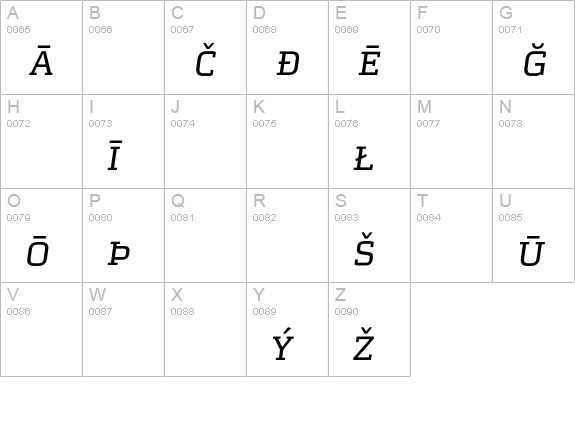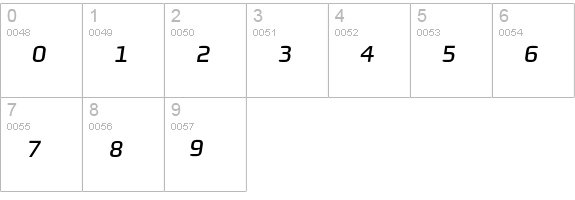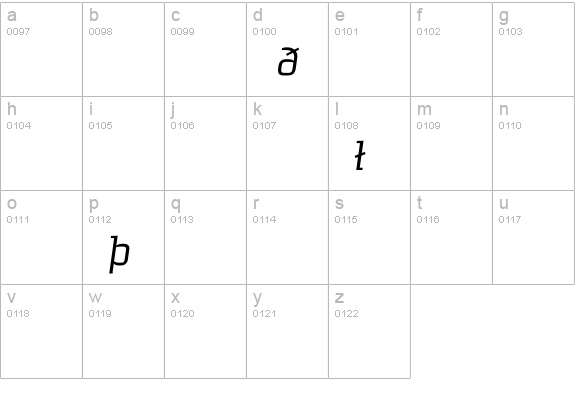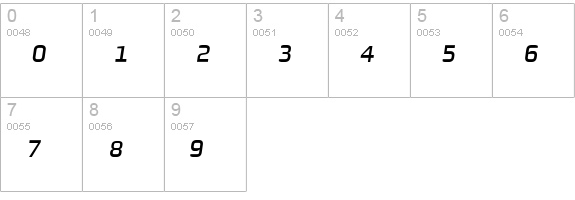
MorganAvec ItalicPi Font Details
MorganAvec ItalicPi font is a sleek and modern typeface that exudes elegance and sophistication. With its stylish italic design and unique letterforms, this font is perfect for adding a touch of class to any project. The flowing curves and sharp angles of MorganAvec ItalicPi create a dynamic and eye-catching look that is sure to make a statement. Best of all, MorganAvec ItalicPi is available for free download at FontsMarket.com. Whether you're working on a design project, creating a logo, or crafting a piece of typography art, this font is a versatile choice that will elevate your work to the next level. Don't miss out on the opportunity to enhance your designs with MorganAvec ItalicPi – download it today and unleash your creativity!